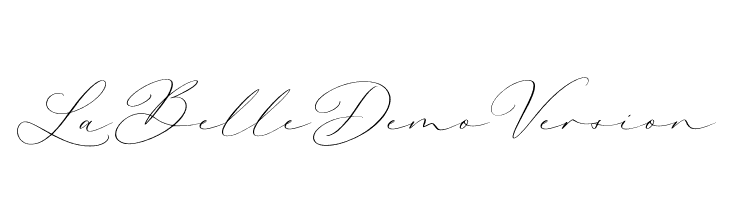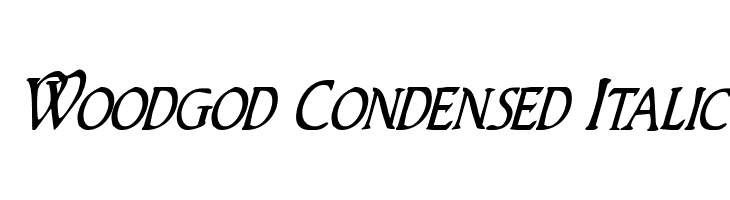
An ornate and decorative font with medieval-inspired flourishes.
( Fabio Servolo )
A bold, condensed font with a modern and strong aesthetic.
A bold, modern, and condensed font with a futuristic aesthetic.
A bold, dynamic italic font with strong, thick strokes and a sense of movement.
A playful, hand-drawn font with rounded edges and a whimsical style.
A bold, decorative font with intricate geometric patterns and thick outlines.
An elegant, flowing script font with a sophisticated, handwritten style.